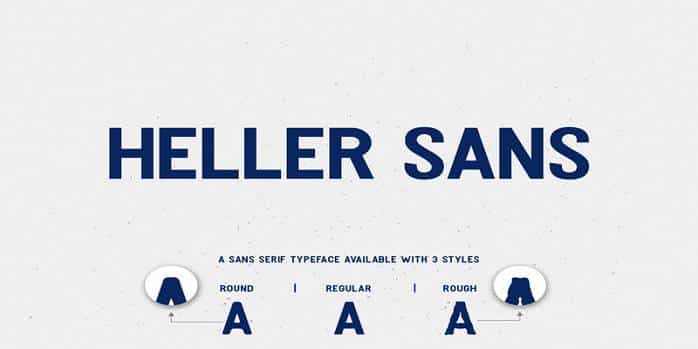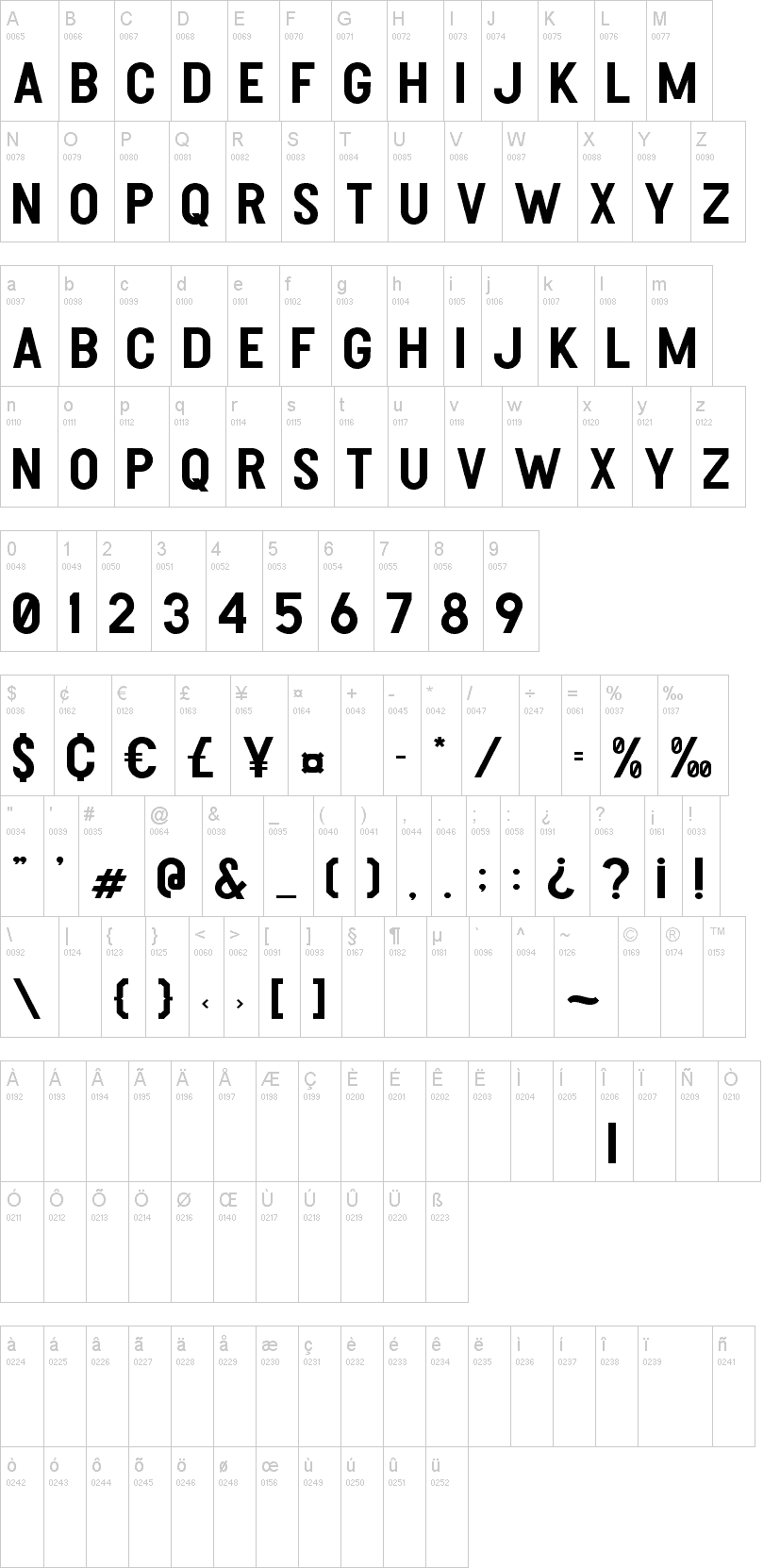
Discover Heller Font, part of the Sans Serif collection—a versatile and unique font perfect for adding a personal touch to your projects. Download it for free and enjoy crafting designs with style, from invitations to social media posts. This font is available exclusively for personal use, giving you the freedom to create without limits. Unlock your creativity with Heller Font today!